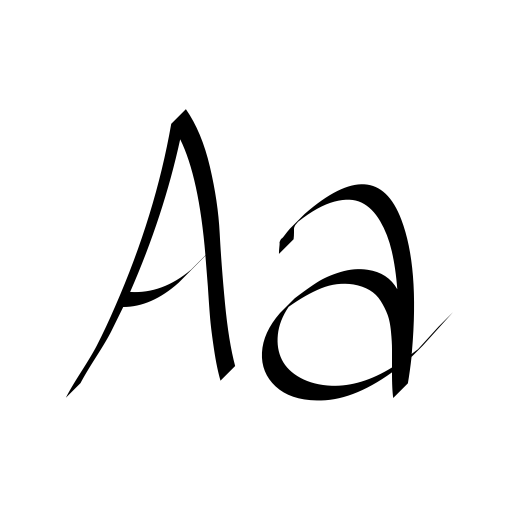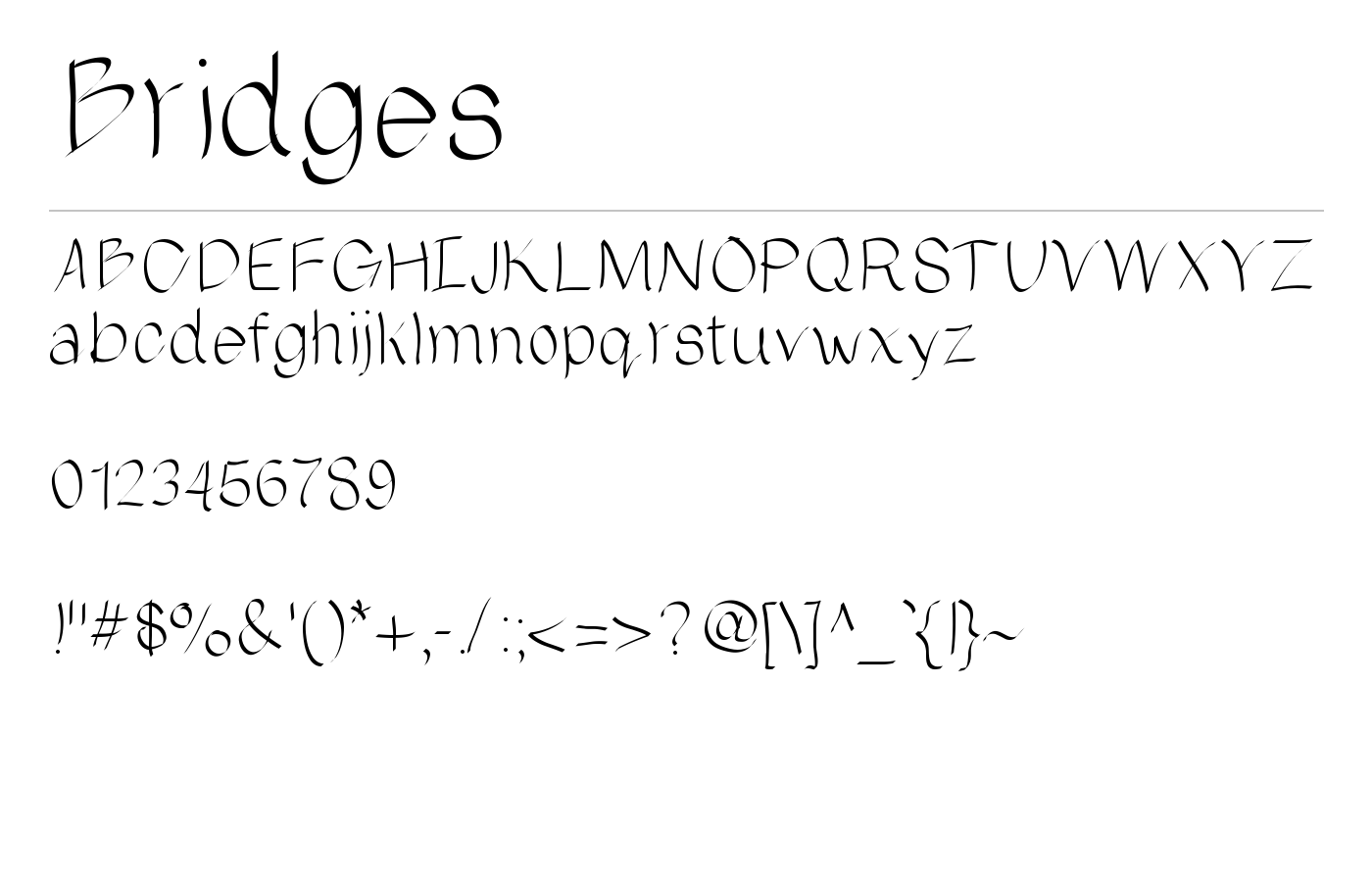
Bridges is a delicate serif font with a handmade, slightly whimsical feel, featuring slender strokes and subtle contrast that evoke an artistic, organic style. Its narrow letters and quirky details make it ideal for creative projects, invitations, and branding that seek an elegant yet approachable aesthetic. This font works best in headlines or decorative text where its unique character can shine without sacrificing readability.
Bridges Font
About Bridges Font